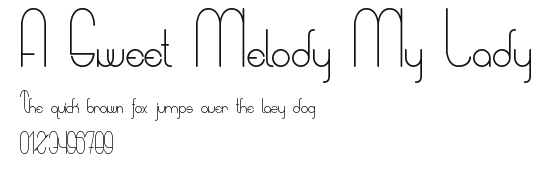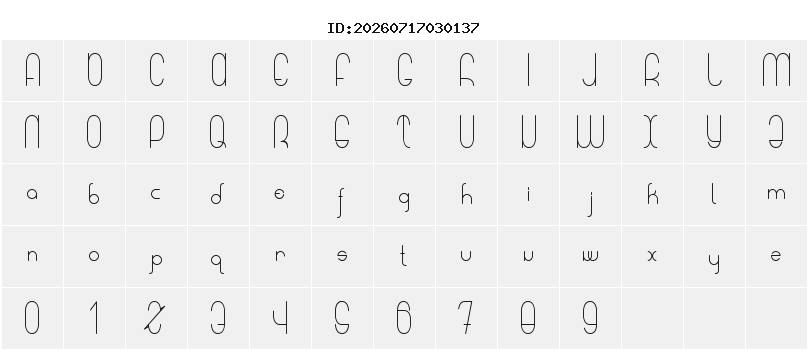
• Font Name: A Sweet Melody My Lady
• Designer: M.K.V
• Manufacturer: M.K.V
About A Sweet Melody My Lady.ttf
A Sweet Melody My Lady.ttf is a modern, elegant sans-serif font designed for ultimate readability and visual harmony. Perfect for branding, headlines, web design, and print materials.